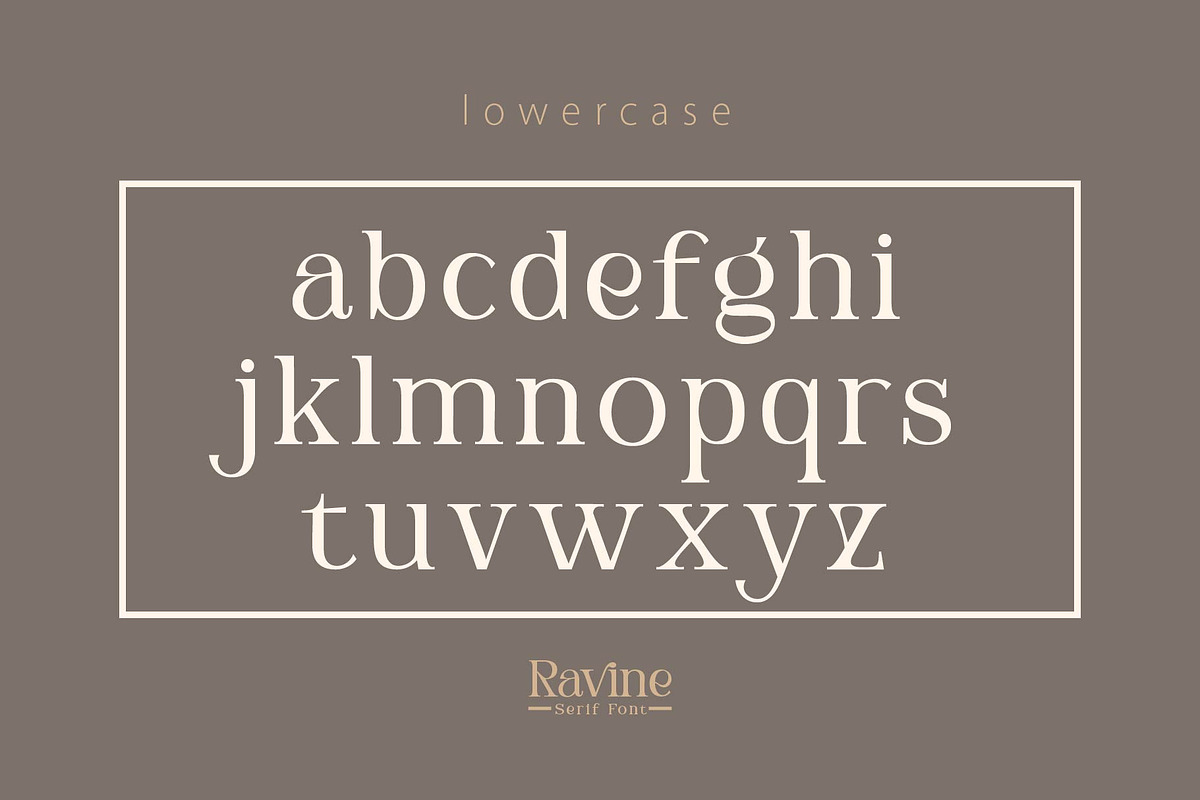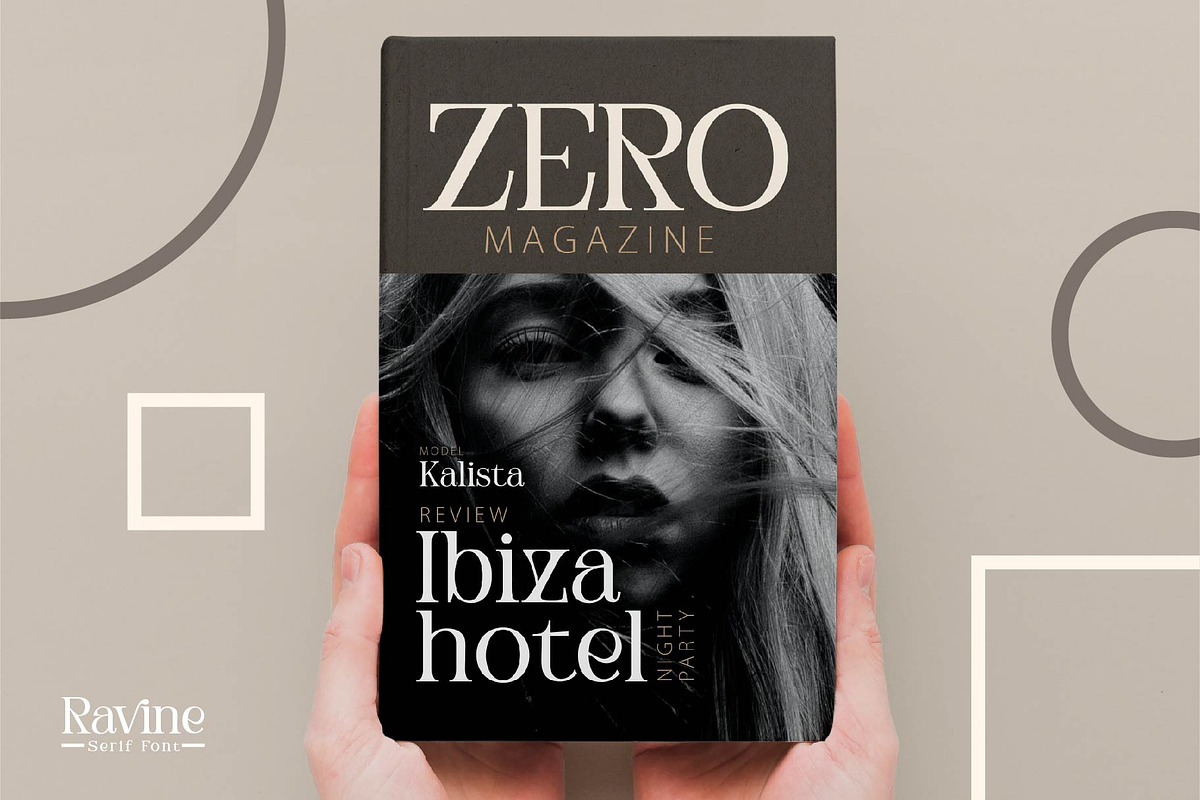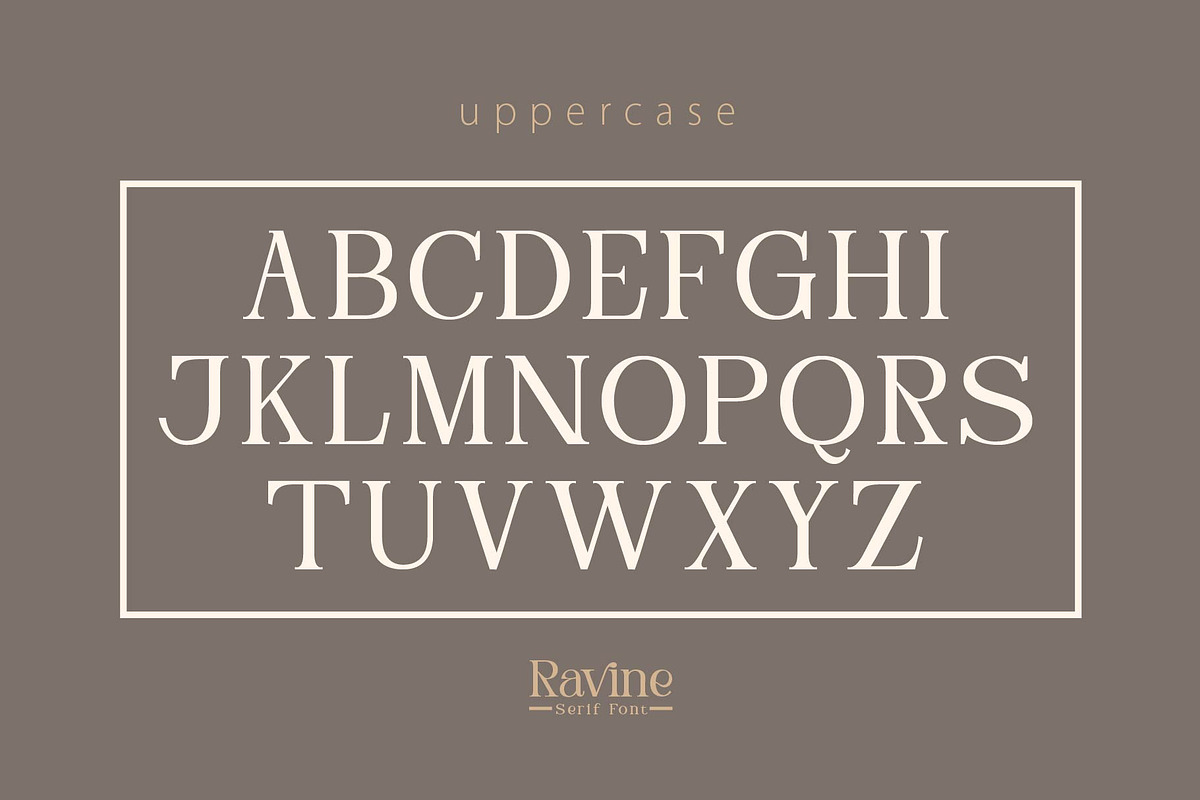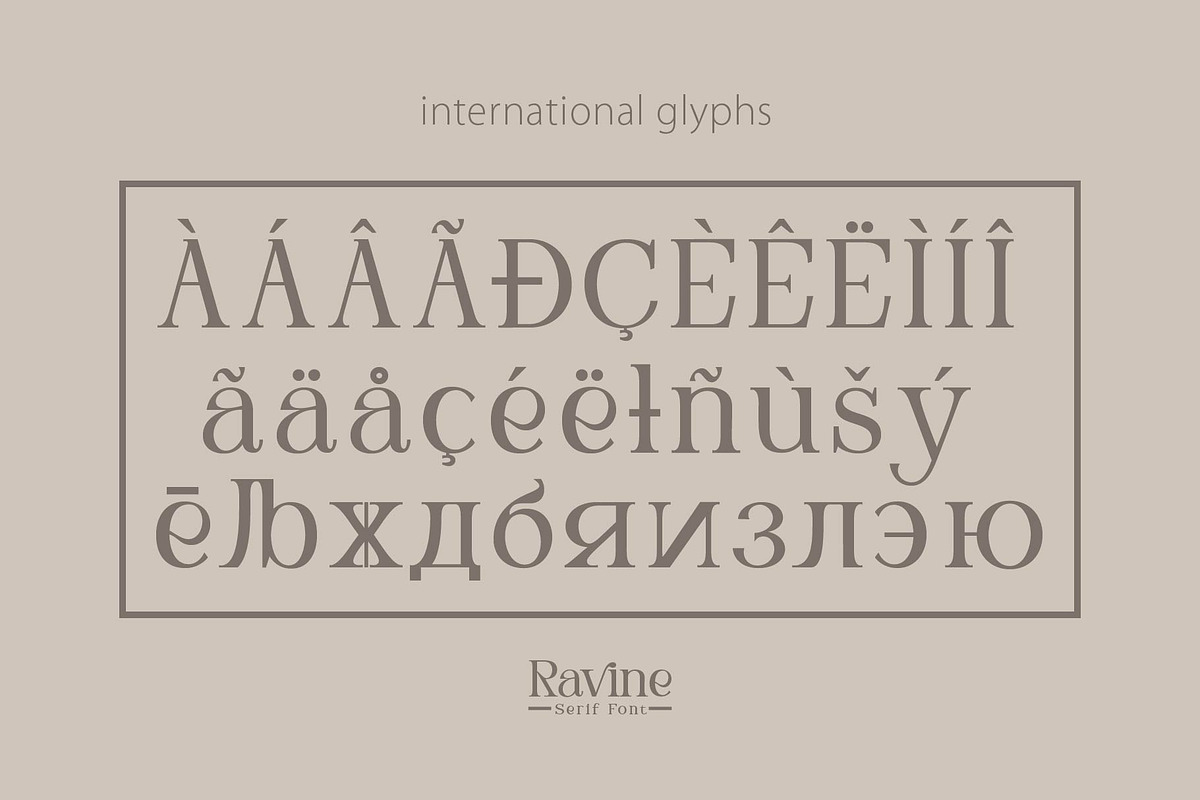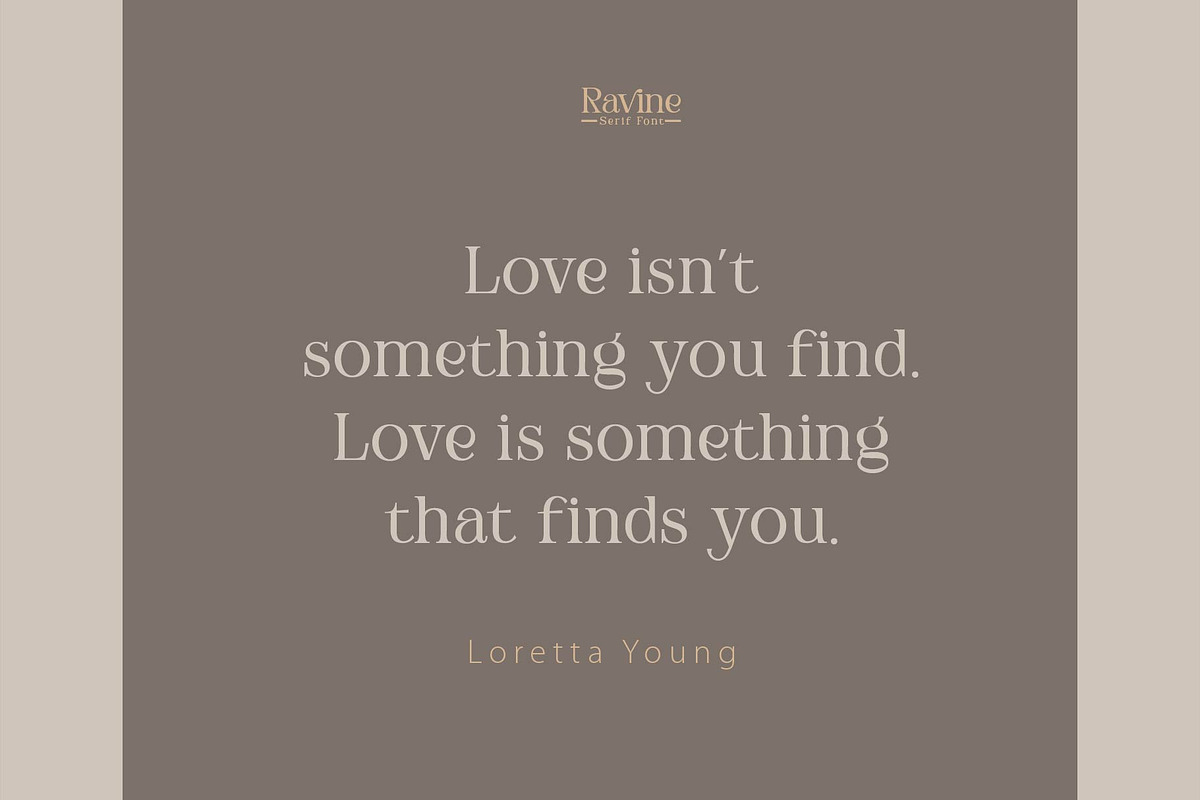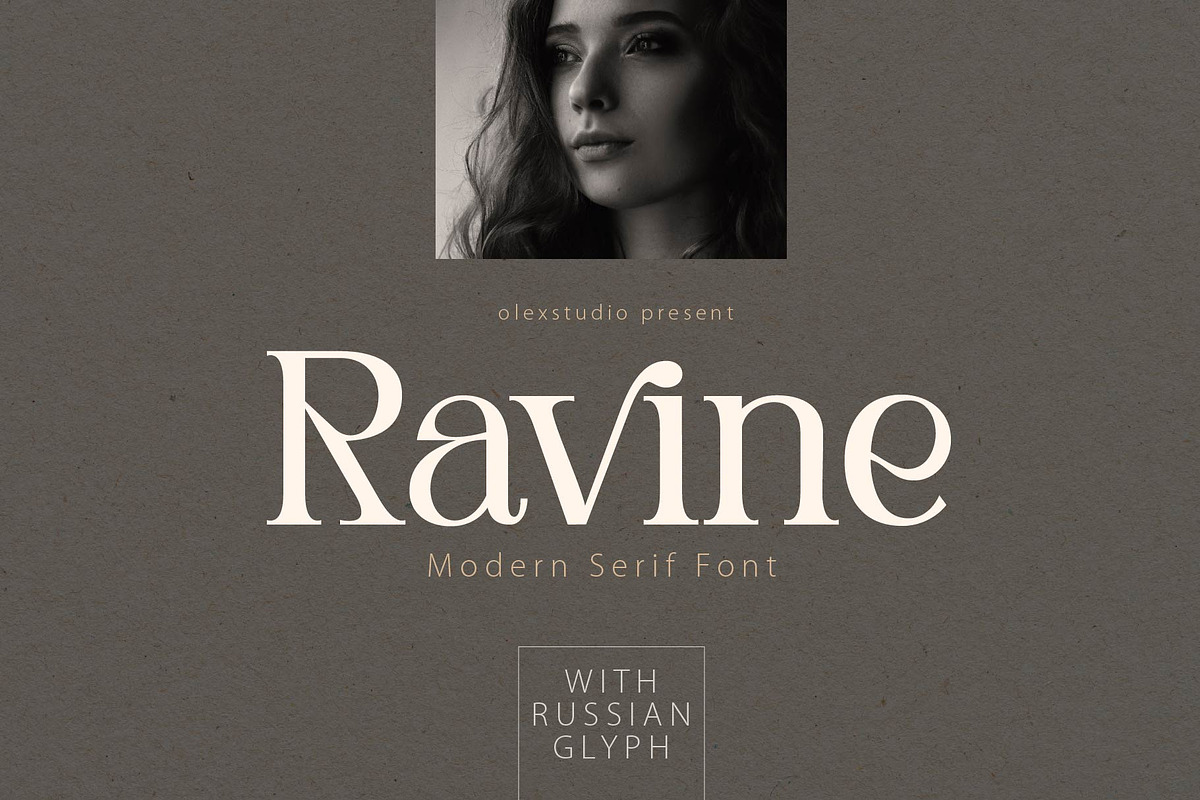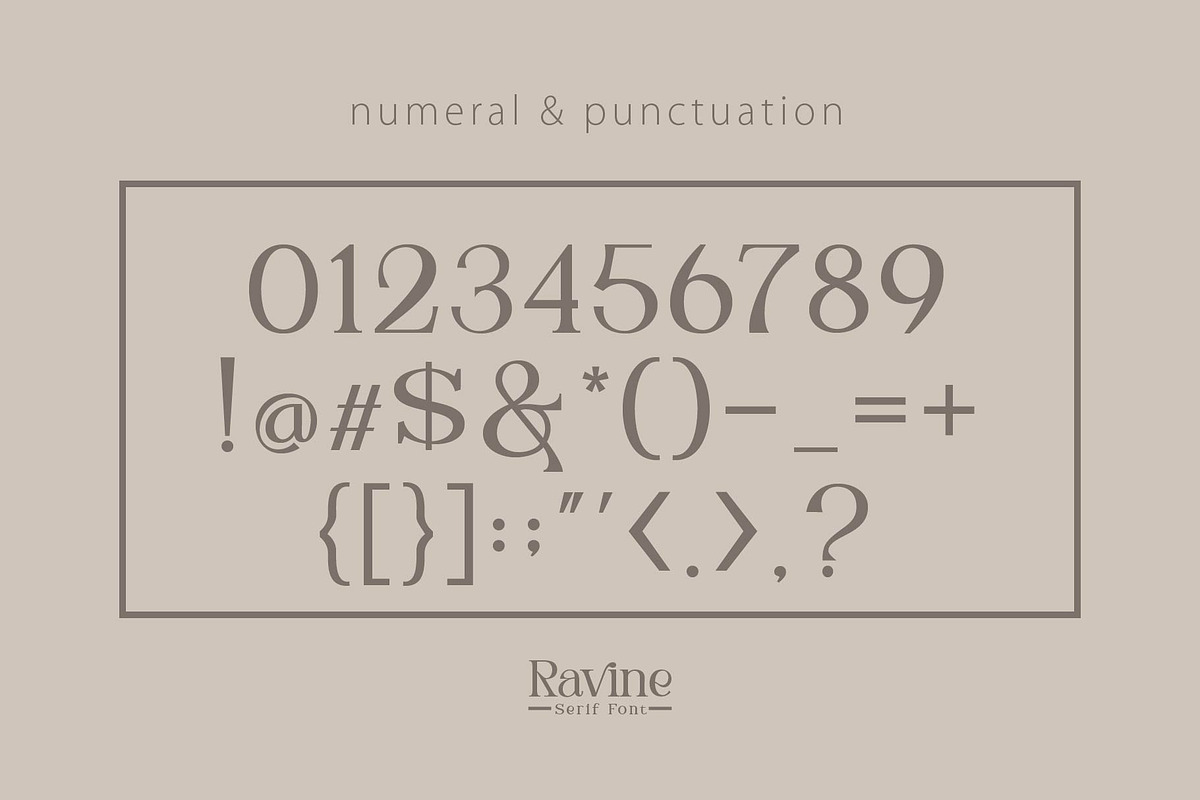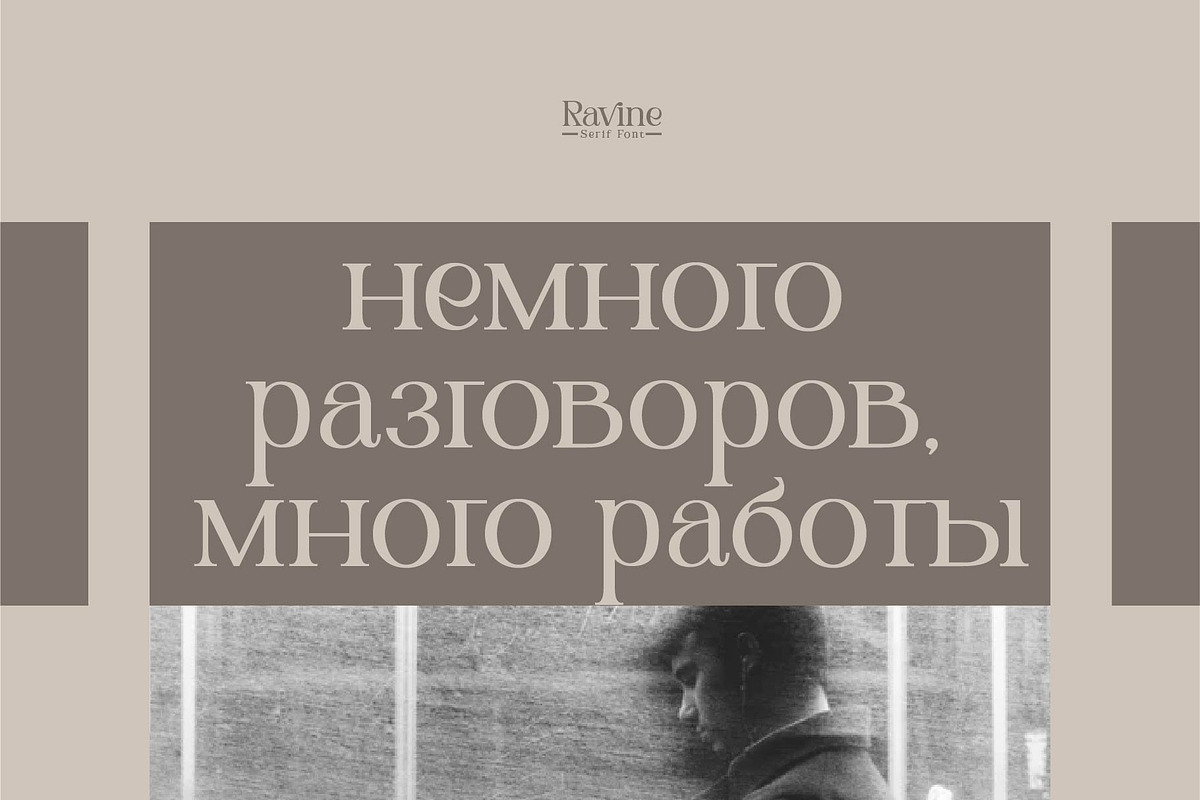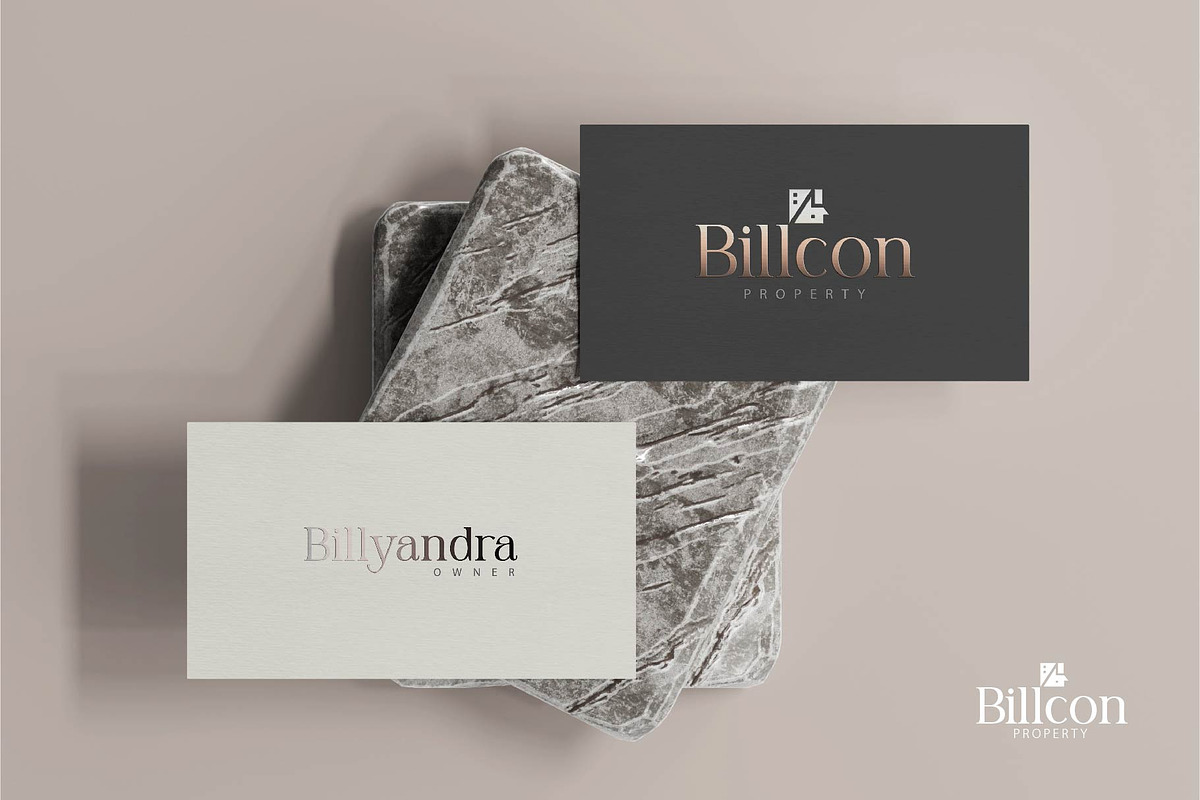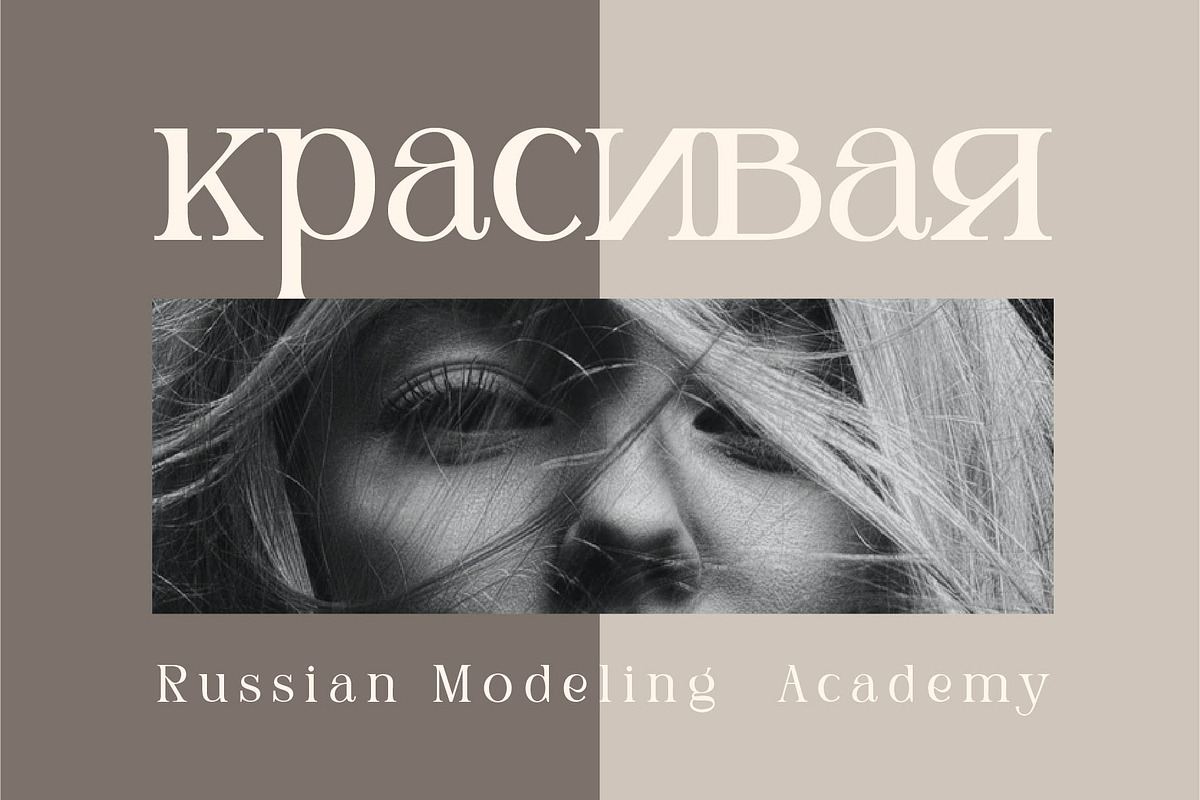
Ravine - modern serif
Ravine font shape is very good for a variety of your design products, with a firm shape that gives the impression of luxury and elegance, there are Russian glyphs in Ravine font so you can create designs in various languages